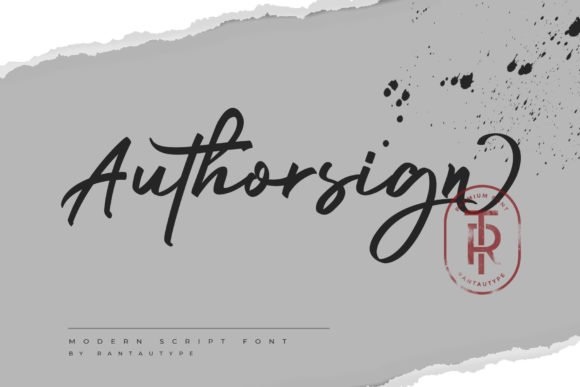
Unleash the Magic of Handwritten Charm with Authorsign Font
As a designer, there’s no better feeling than holding a physical copy of your work, watching the emotions it evokes, and knowing that every detail was carefully crafted to make it special. Whether it’s a wedding invitation, a heartfelt thank you card, or a company logo, the right font can make all the difference. For those seeking a touch of elegance and sophistication, the Authorsign Font is a game-changer.
This stylish script font is designed to add a handwritten charm to any design, making it perfect for a wide range of applications. With its PUA encoding, accessing all the glyphs and swashes is a breeze, giving you the freedom to create unique and personalized designs. Whether you’re a seasoned designer or just starting out, the Authorsign Font is an invaluable tool in your creative arsenal.
Key Features of Authorsign Font
- Font Family: Authorsign Font is a unique and elegant font family that includes multiple styles, such as Regular, Italic, Bold, and Bold Italic.
- Unique Characteristics: The font features a distinctive, hand-drawn style with subtle flair and elegance, making it perfect for creating a sophisticated and professional look.
- Character Set: The font family includes a comprehensive character set, including Latin, Greek, and Cyrillic scripts, as well as punctuation and special characters.
Review of Authorsign Font
Authorsign Font has some really great qualities that make it stand out in the world of typography. ✨ The first thing I notice is the elegant, sophisticated look that it brings to any text. It’s perfect for creating a sense of luxury and refinement. The font’s curves are smooth and flowing, making it a joy to read.
Another strength of Authorsign Font is its versatility. ✨ It can be used in a wide range of applications, from book titles and headings to body text and captions. The font is also highly legible, making it suitable for long blocks of text.
However, there are some limitations to Authorsign Font that I’d like to point out. ⚠️ One of the main issues is that it can be quite difficult to customize. The font’s ligatures and kerning can be tricky to adjust, which can lead to inconsistent spacing and readability issues.
Another limitation is that Authorsign Font is not ideal for use in small sizes or in low-resolution contexts. ⚠️ The font’s intricate details can get lost or distorted at smaller sizes or in low-quality output.
- Works well for luxury or high-end branding
- Highly legible and suitable for long blocks of text
- Elegant and sophisticated look
- Can be difficult to customize
- Not ideal for small sizes or low-resolution contexts
Overall, Authorsign Font is a solid choice for designers who need a high-end, sophisticated font for their projects. While it has some limitations, its strengths make it a great option for a wide range of applications.
Use the Authorsign font to create eye-catching book covers, author bios, and literary quotes.
Book covers
Author bios
Literary quotes
Book club materials
Author websites